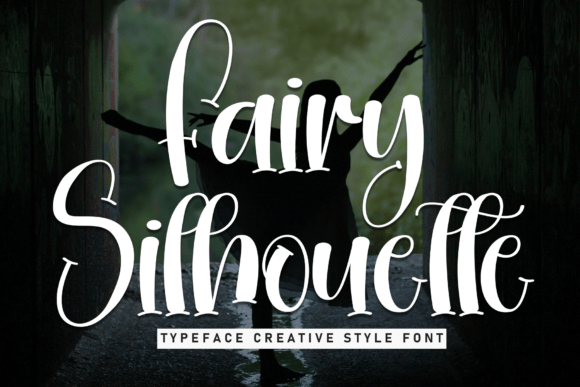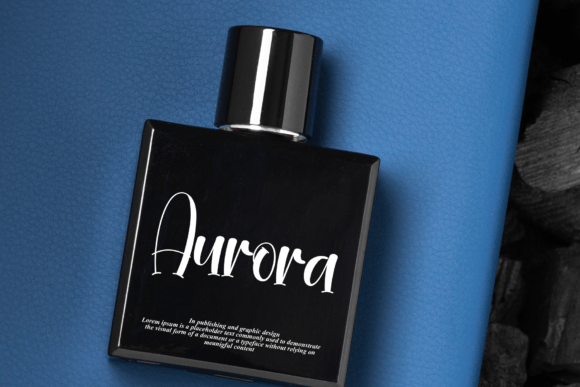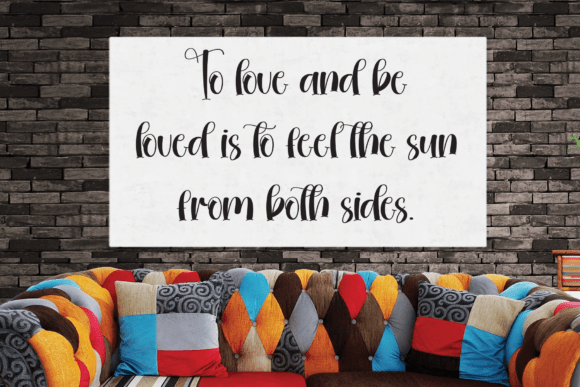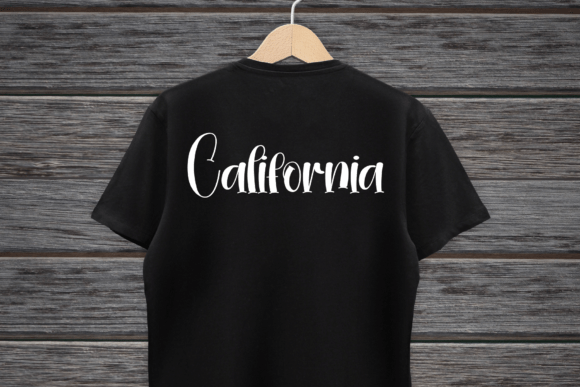
Fairy Silhouette Font
About the Fairy Silhouette Font
Unleash your creativity with Fairy Silhouette Font, a versatile font perfect for a wide range of applications. Fairy Silhouette is a whimsical and elegant script font that dances between fantasy and charm. With tall, graceful strokes and flowing swashes, it brings a magical flair to your designs. Perfect for fairy tale covers, logo branding, invitations, and creative storytelling, this font is your go-to for enchanting visuals with a handcrafted touch.
Fairy Silhouette excels in applications requiring a touch of whimsical elegance, such as logos, wedding invitations, short headlines, and packaging for luxury or fairytale-themed products. Its delicate nature makes it less suitable for body text or UI elements where readability is paramount. Long passages set in this font would be difficult to read.
The font’s personality is undeniably elegant and playful, yet maintains a sophisticated charm. Brands targeting a female demographic or those with a focus on fantasy, beauty, or romance will find it particularly effective.
Consider pairing Fairy Silhouette with a clean sans-serif like Lato for contrast and improved readability in supporting text, or a classic serif like Garamond for a more traditional, balanced feel. For a bolder contrast, a geometric sans-serif could be used for headlines or call-to-actions.
Fairy Silhouette Font Usage Examples
Fairy Silhouette Font Example